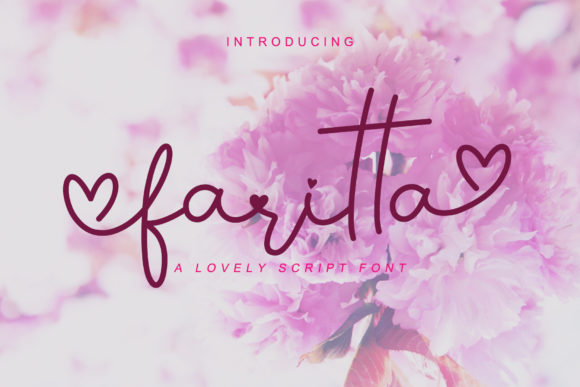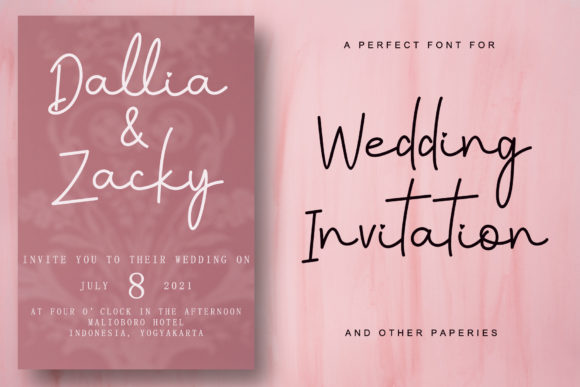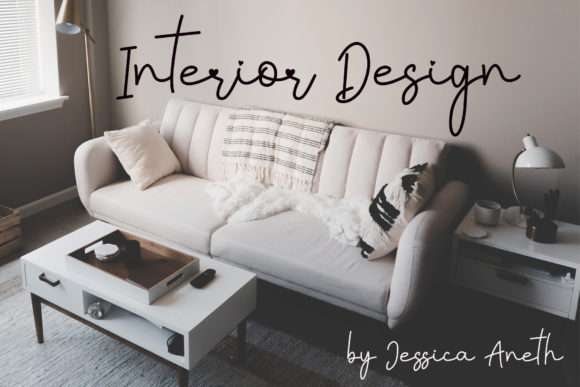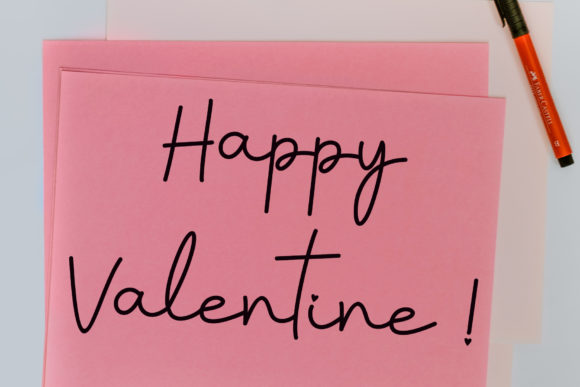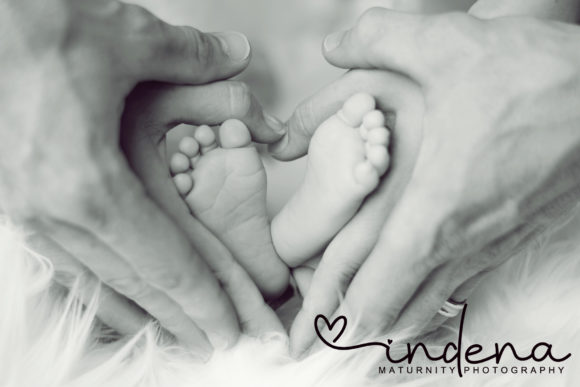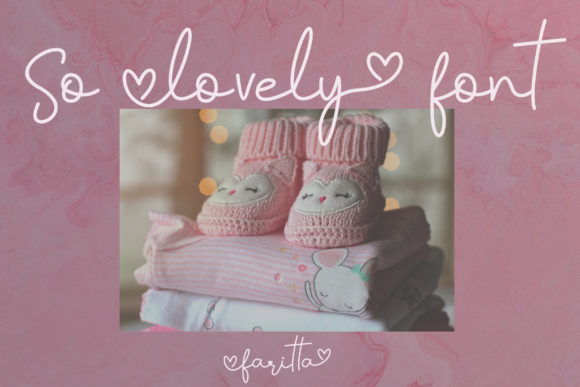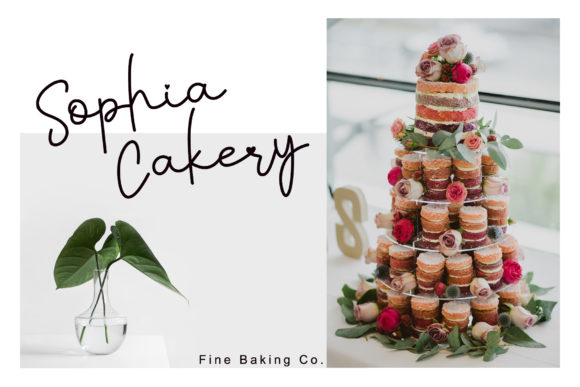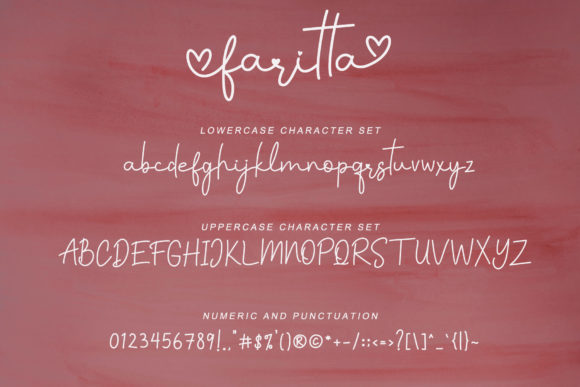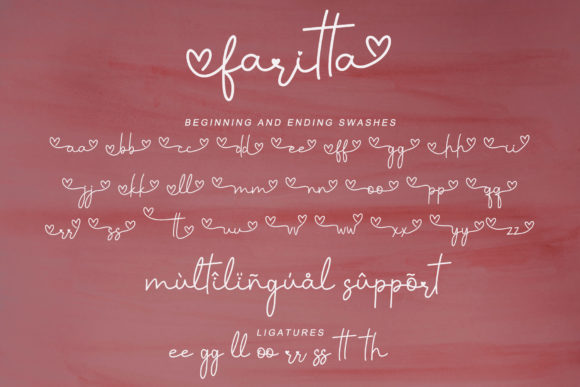
Faritta Font
About Faritta Font
Faritta is a beautiful, elegant, yet casual and simple font script featuring a natural look & feel. It’s a perfect addition to any crafter’s toolbox!